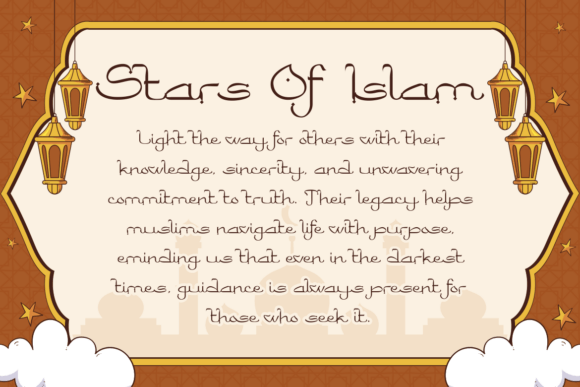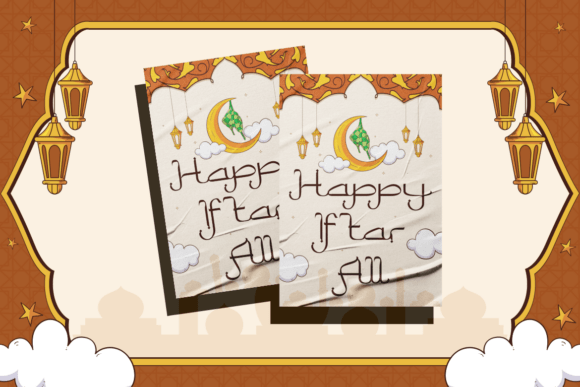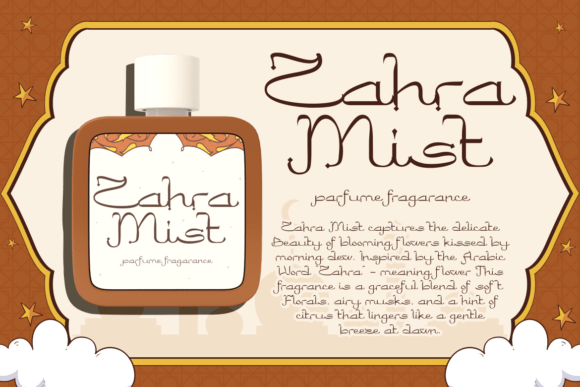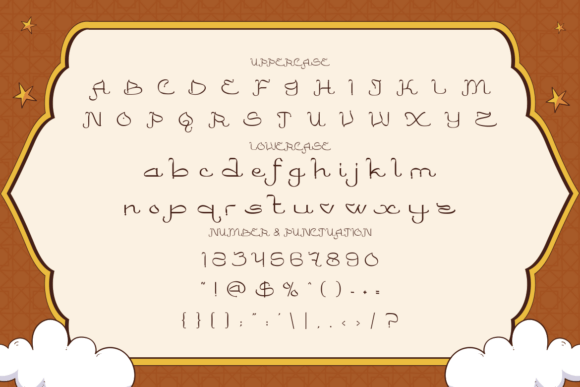
Introduction to Minar Block Font
Minar Block is a beautifully crafted Arabic-style font designed for modern Islamic themes.
Its elegant curves and subtle strokes evoke the aesthetics of Middle Eastern calligraphy while maintaining strong readability Each character features geometric precision, enhanced with ornamental flourishes that mirror traditional Arabic visual language.